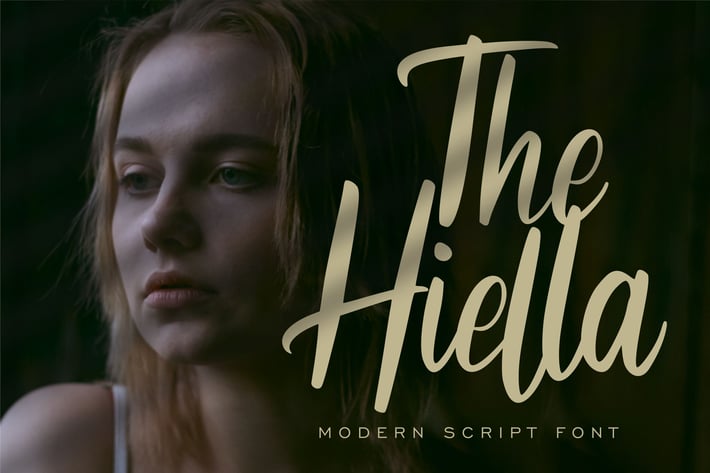
The Hiella | Modern Script Font
The Hiella | Modern Script Font with a calligraphy style, So beautiful on invitation like greeting cards, branding materials, business cards, quotes, posters, and more!